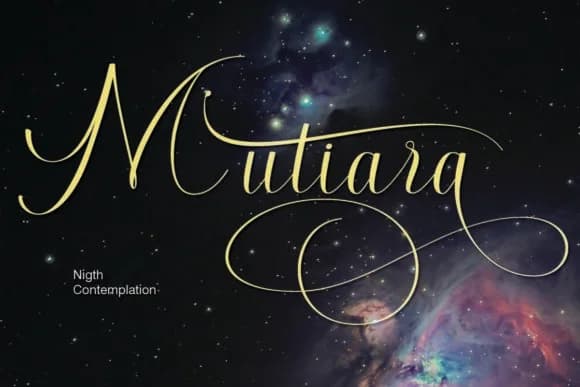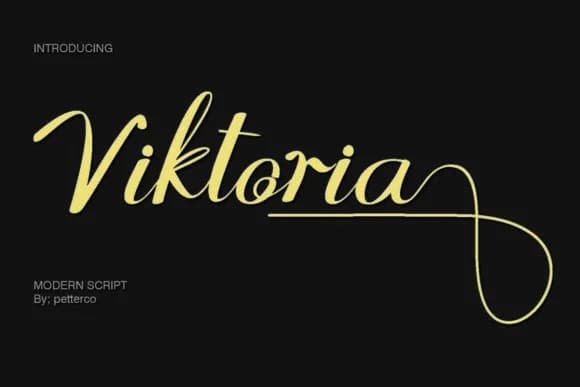
You're laying out wedding invitations and searching for script typeface with handmade appeal and current sensibility. Againts Font, designed by petterco.font, is a modern calligraphic script that solves exactly this balance. It brings genuine handwritten warmth to any project demanding both sophistication and personality without forcing the choice between them.
The script thrives in applications where elegance shapes the entire approach. Boutique skincare packaging feels natural with its flowing letterforms. Event menus carrying classical aspiration, business card suites that actually get kept, luxury product labels for specialty brands, craft signage for independent makers, and wedding stationery all gain from what this typeface delivers. It maintains legibility while keeping that authentic, imperfect quality that makes script feel personal rather than sterile. You can deploy it for logos, greeting cards, hand-lettering projects, and social graphics wherever you want genuine character instead of hollow ornament.
What makes this typeface useful is its consistency at larger sizes. The letterforms hold their personality and reading clarity whether you're using them as headlines or supporting elements. This flexibility matters more than most designers realize, separating typefaces you reach for from ones that sit unused. Creative Fabrica has Againts ready whenever you want to bring that handcrafted touch to your work.
Againts Font is a script font that shines as a display or heading face. Pair it with a clean sans-serif or serif font for body text β the contrast creates a clear hierarchy while the two styles stay balanced and easy to read.